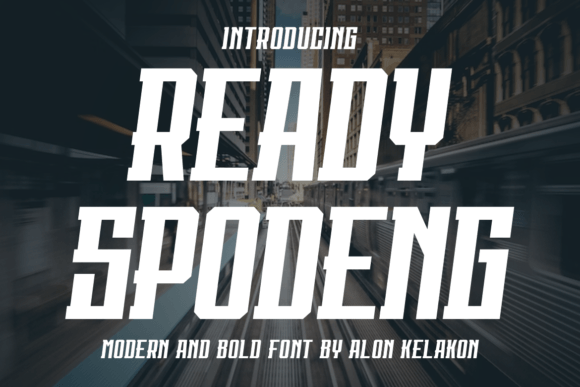
**Introducing Ready Spodeng: The Serif Font That Commands Attention**
In a world saturated with digital noise, your designs need a font that breaks through the clutter and demands attention. Enter Ready Spodeng, a serif font that exudes confidence and sophistication. With its clean lines, sharp angles, and bold presence, Ready Spodeng is the perfect font for businesses and individuals looking to make a lasting impression.
**Timeless Beauty Meets Modern Boldness**
Ready Spodeng skillfully blends the classic elegance of serif fonts with a distinctively modern aesthetic. Its serifs are sharp and defined, adding a touch of intrigue and visual interest to your designs. The result is a font that is both timeless and contemporary, making it ideal for a wide range of applications.
**Versatile and Adaptable to Your Every Need**
Ready Spodeng is a versatile font that can effortlessly adapt to your diverse design requirements. Whether you're crafting branding and logos that demand instant recognition, creating editorial layouts that inform and engage, or designing web typography that captivates and converts, Ready Spodeng is your go-to font. Its adaptability makes it a valuable asset in any designer's toolkit.
**Make a Bold Statement with Your Designs**
With Ready Spodeng as your font of choice, you have the power to make a statement that resonates with your audience. Every letter, every word, and every line of text crafted with Ready Spodeng carries weight and intention, leaving an unforgettable impact on your readers or customers. Whether you're designing marketing materials, social media graphics, or website content, Ready Spodeng empowers you to communicate with clarity, confidence, and a touch of audacity.
Ready Spodeng is more than just a font; it's an investment in your design arsenal. Its versatility, adaptability, and bold aesthetic make it a font that will serve you well for years to come. So, don't settle for ordinary fonts that blend into the background. Embrace the power of Ready Spodeng and watch your designs transform into captivating creations that leave an indelible mark.